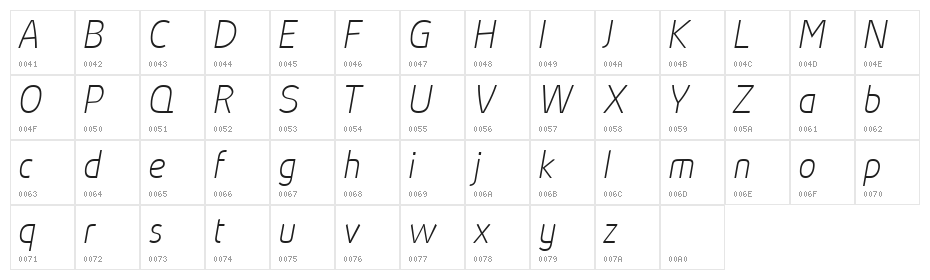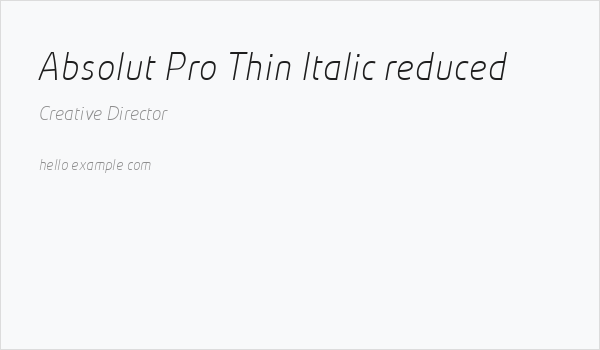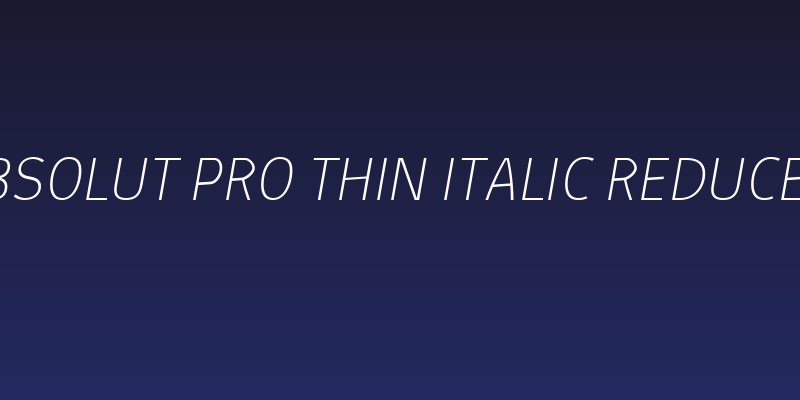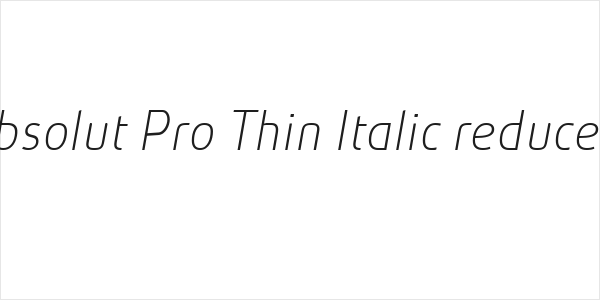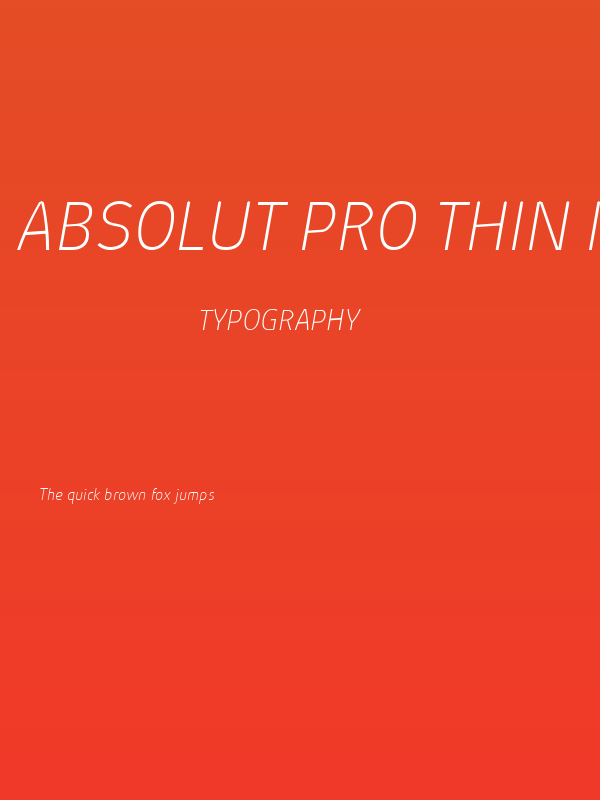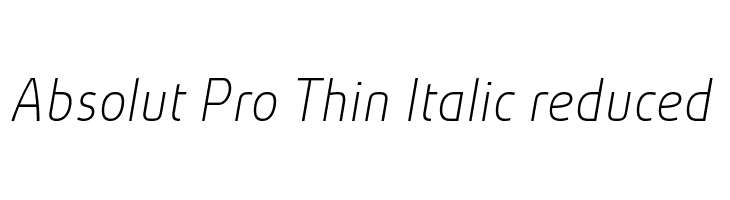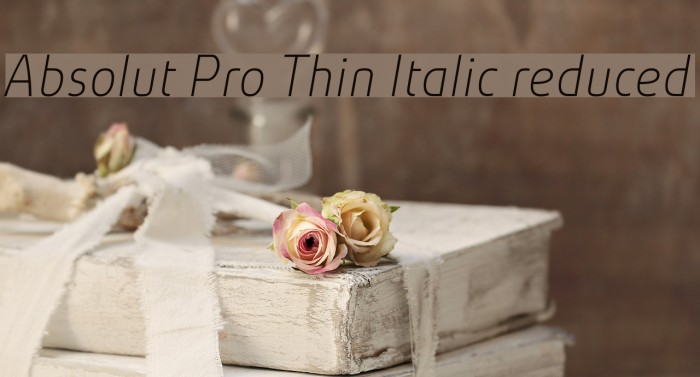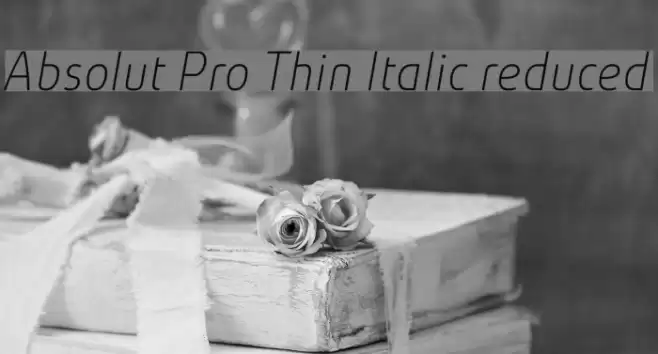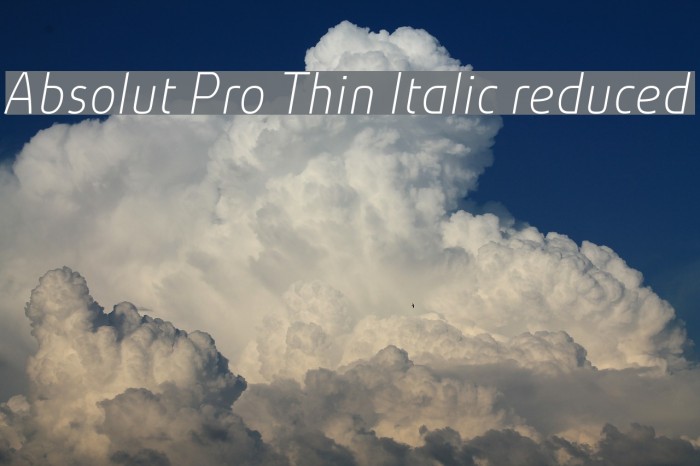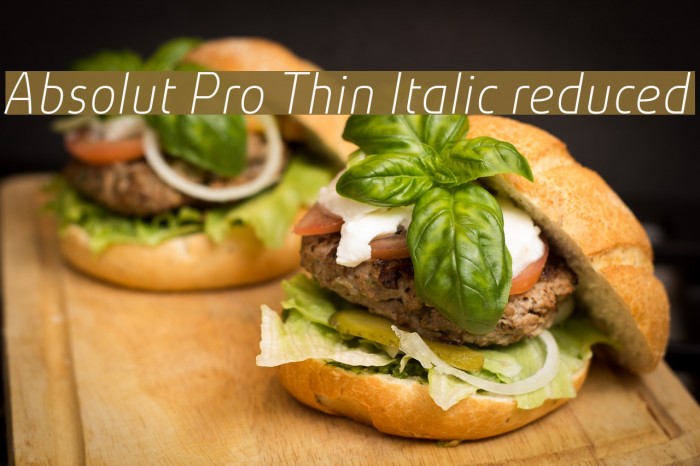
Absolut Pro Thin Italic reduced Font
Absolut Pro Thin Italic reduced Description
This font exhibits a sleek and modern aesthetic with its thin, elongated letterforms and subtle italic slant. The characters are crafted with precision, showcasing a minimalist design that emphasizes clarity and elegance. The uppercase and lowercase letters maintain a consistent style, with smooth curves and clean lines that contribute to its sophisticated appearance. The font's thin weight and slight italic angle give it a dynamic yet understated presence, making it suitable for a variety of design applications. Its overall style is contemporary, with a focus on readability and visual appeal.
| Use Case | Headlines, Body text, Logos |
| Proposed Projects | Ideal for modern branding, editorial design, digital interfaces, and minimalist posters. |